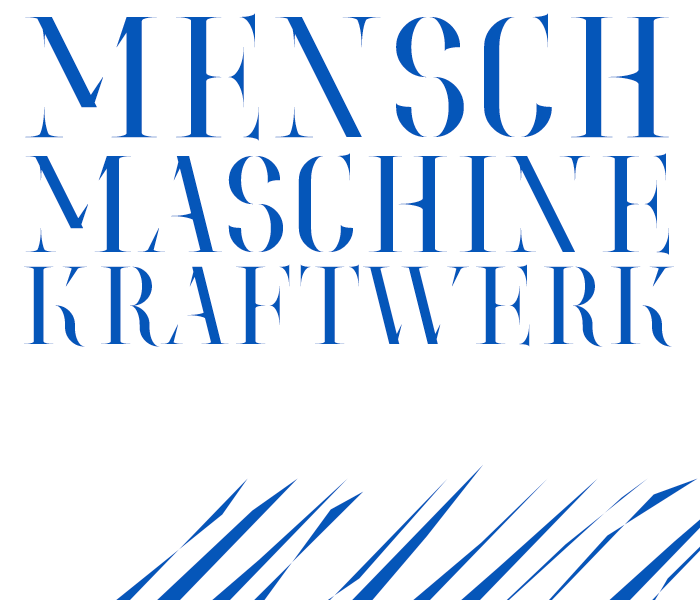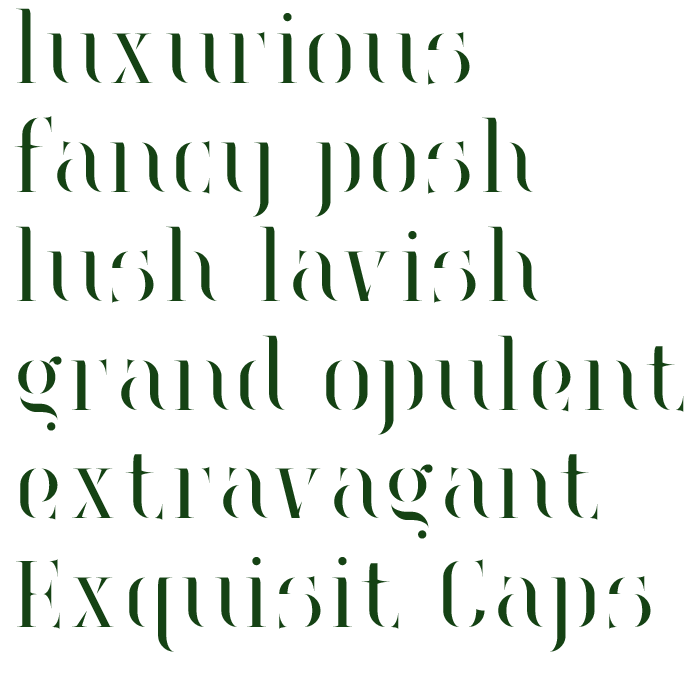
Great work, still very legible
Favorites: K R U
Very nice. 10/10+fav
Small caps might work for the lowercase.
Wow.
Congratulations on the TP, ungewöhnliche Linienführungen bzw. -unterbrechungen :)
woow very cool !!
@Felicia: Thanks for the nice feedback. My best tipps are: Switch to expert mode and experiment as much as possible. Look out for typeface you like and try to imitate them from memory. (That's actually a tipp from Erik Spiekermann...)
Great font! I like it a lot, it's like a little piece of me... but well done! Sorry for the delay, master. 10/10
I'd like to suggest you to keep the serifs in the S so as to maintain a uniform style. You could make it a variant (upper/lowercase) so people can choose which style to use. Would be nice to see small caps too :)
Nice samples
It surely is exquisite!
I tried and tried to make a font like this but i just couldn't figure it out. This is just about my favorite font i've seen on FS. How do you shrink just single blocks like that? Mind blown.
How did you make the swoops found in the s, g, o, and k? I've been trying to make something similar for so long!
Can you please add numerals? They'd look nice in the font...